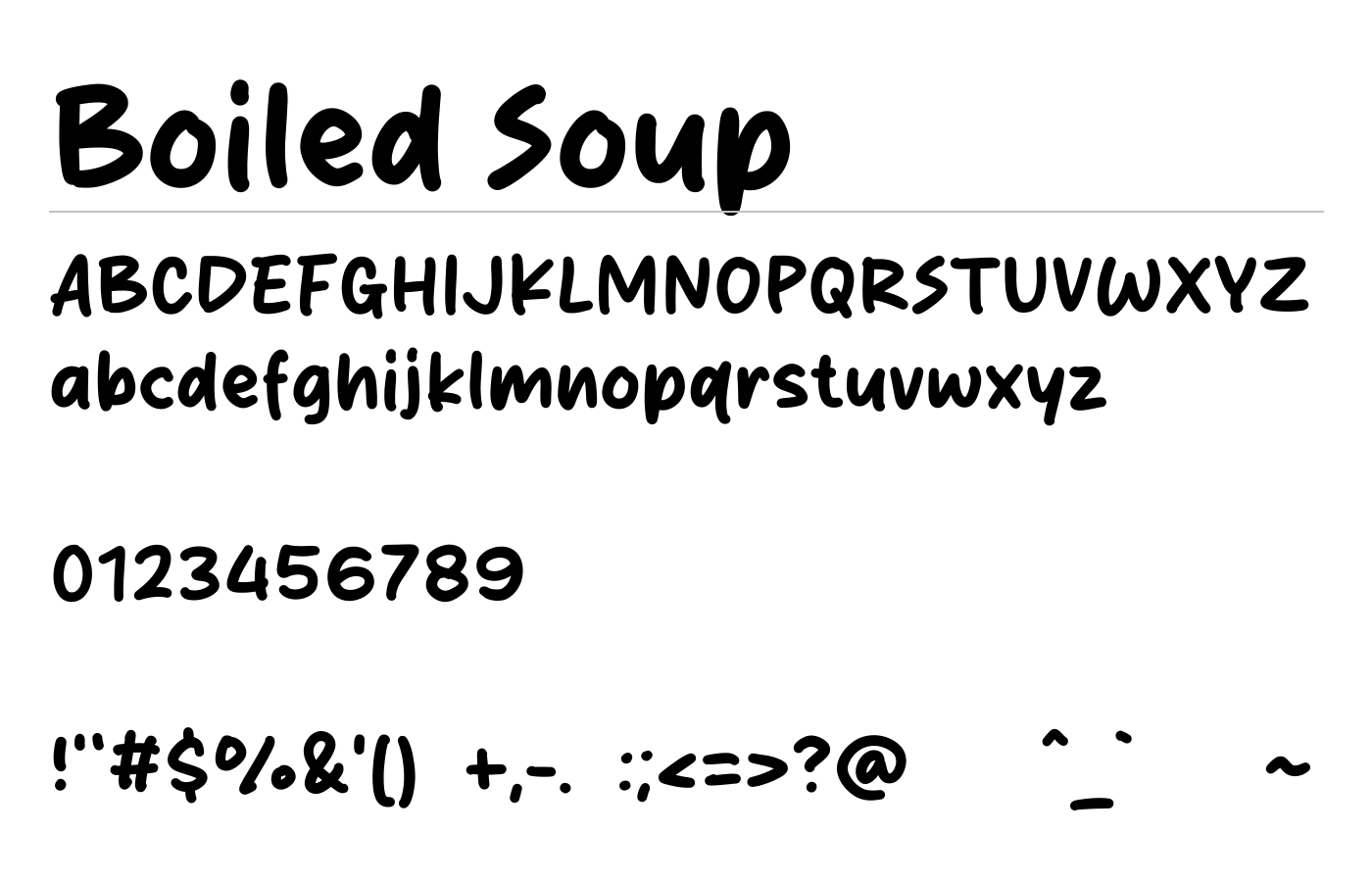
Boiled Soup is a playful and casual sans-serif font with a hand-drawn feel, featuring rounded, irregular strokes that give it a friendly and approachable character. Its moderate weight and open letterforms make it versatile for informal designs, perfect for creative branding, children's materials, and fun, eye-catching headlines. This font's energetic and whimsical style works well where a warm, personal touch is desired.
Boiled Soup Font
About Boiled Soup Font